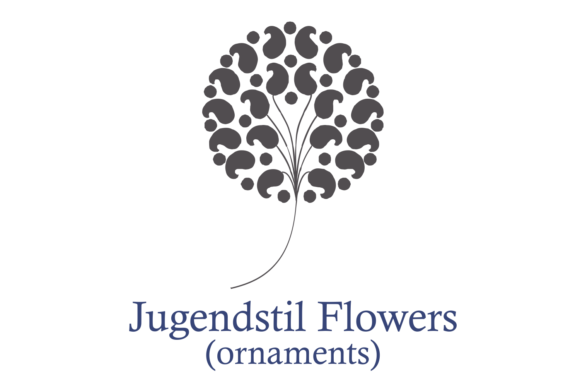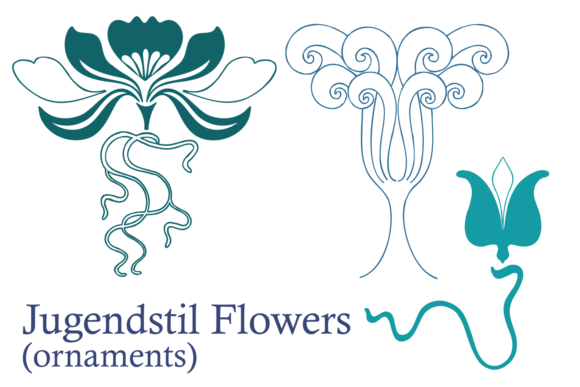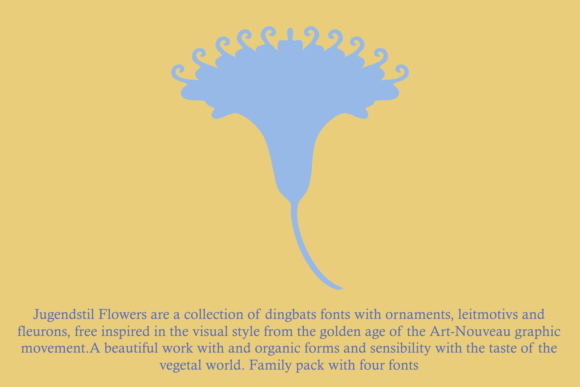
Introduction to Jugendstil Flowers Font
Have you ever stared at a blank canvas, feeling like the perfect design is just out of reach? That’s where the magic of typography comes in. A well-chosen font can elevate your entire creative project, adding a touch of elegance and sophistication that leaves a lasting impression. For designers looking to add a unique twist to their work, the Jugendstil Flowers Font is an exciting discovery.
As a collection of dingbats fonts with ornaments, leitmotivs, and fleurons, the Jugendstil Flowers Font is inspired by the visual style of the Art-Nouveau graphic movement’s golden age. This beautiful font is more than just a design resource – it’s a key to unlocking a world of creative possibilities.
Key Features of Jugendstil Flowers Font
- High-quality design resource with intricate floral patterns, perfect for creative projects.
- Includes a transparent background option, allowing for easy integration into various design elements.
- Features a large size range, from 100 to 1000 pixels, making it suitable for various design applications.
- Has a high resolution of 300 DPI, ensuring crisp and clear visuals in print and digital designs.
- Unique characteristics include its Art Nouveau-inspired style and intricate floral patterns, making it a standout design element.
Honest Review: Jugendstil Flowers Font
As a designer, I’m always on the lookout for high-quality design resources that can elevate my creative projects. The Jugendstil Flowers Font is a free download that caught my eye, and I’m excited to share my honest review with you.
What works well: ✨ The Jugendstil Flowers Font is a beautiful, intricate design that’s perfect for projects that need a touch of elegance. The font is highly customizable, and I appreciate the transparent background option, which makes it easy to work with.
Here are some key features I like:
- Transparent background option for easy customization
- Beautiful, intricate design that’s perfect for elegant projects
Limitations: ⚠️ While I love the Jugendstil Flowers Font, I do wish there were more font styles to choose from. Additionally, the font can be quite dense, which can make it difficult to read in certain contexts.
Overall impression: I’m really impressed with the Jugendstil Flowers Font, and I think it’s a great addition to any designer’s toolkit. While it may have some limitations, the high-quality design and transparent background option make it a valuable resource for creative projects.
How to Use Jugendstil Flowers Font
The Jugendstil Flowers Font is a beautiful and elegant design resource that can add a touch of sophistication to any creative project. With its intricate floral patterns and high-quality design, this font is perfect for designers looking for a unique and eye-catching element to incorporate into their work.
To get the most out of the Jugendstil Flowers Font, experiment with different font sizes and colors to create a unique and eye-catching design. You can also use the font in combination with other design elements, such as shapes and graphics, to create a cohesive and visually appealing design.
The Jugendstil Flowers Font is perfect for a range of creative projects, including wedding invitations, birthday cards, and other special occasion designs. It’s also great for use in branding and marketing materials, such as business cards and brochures.